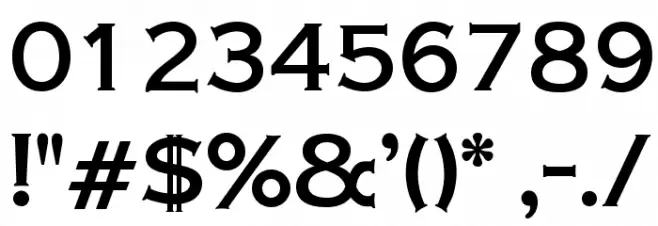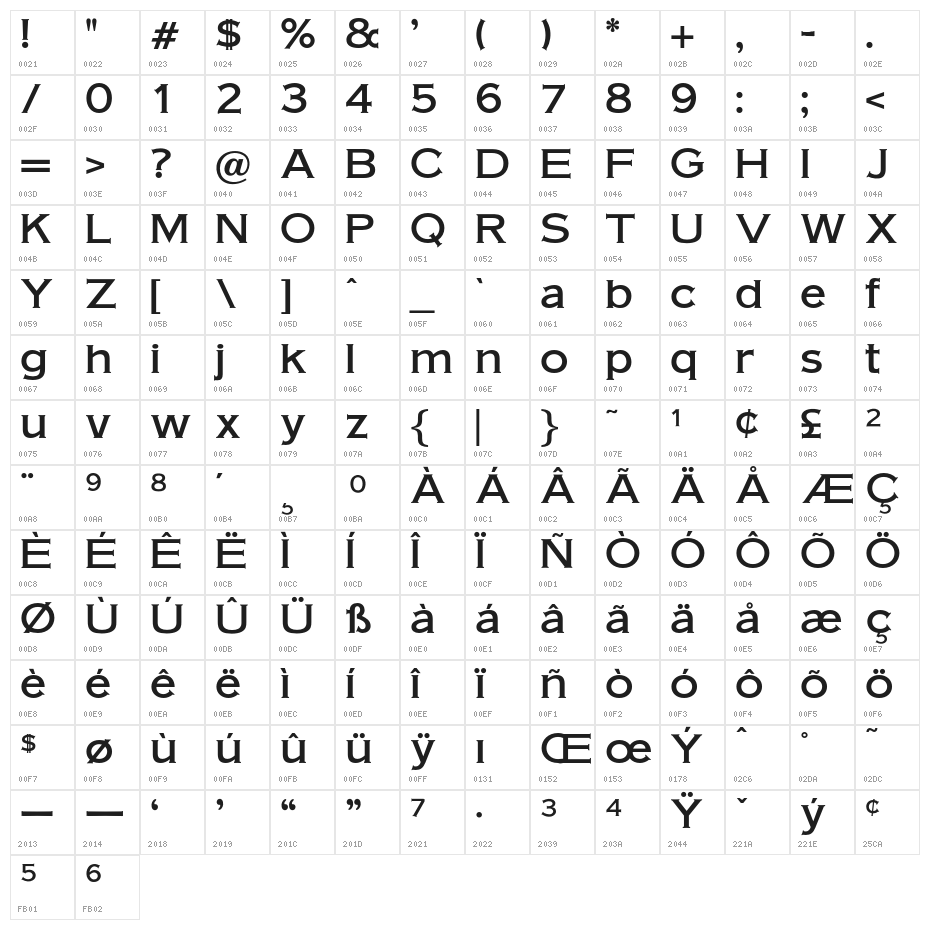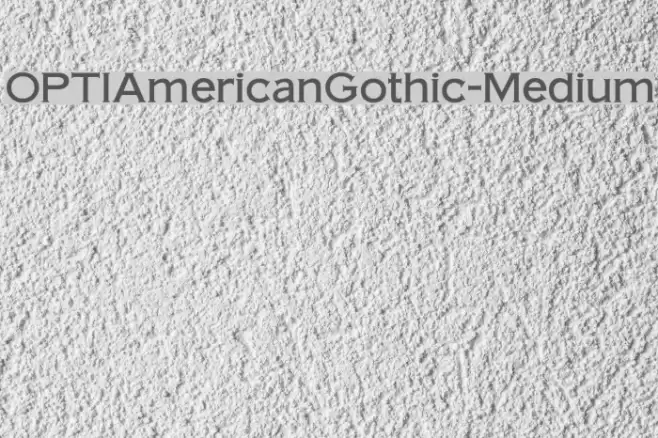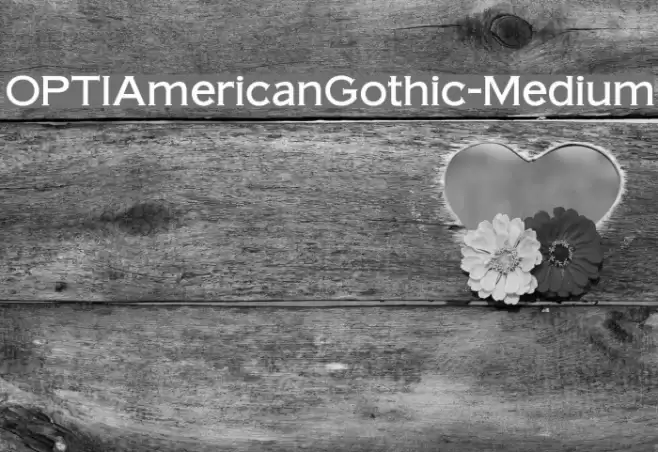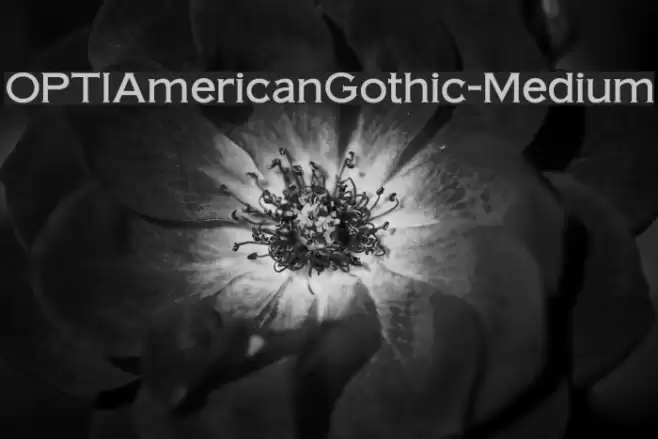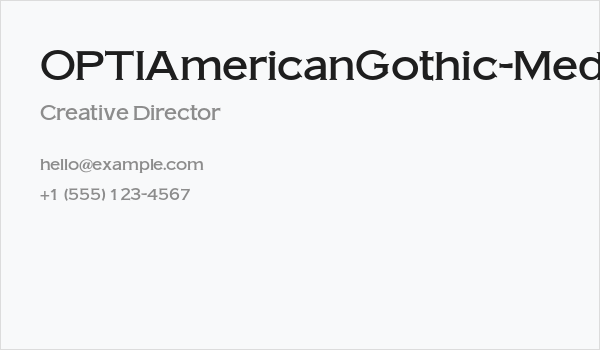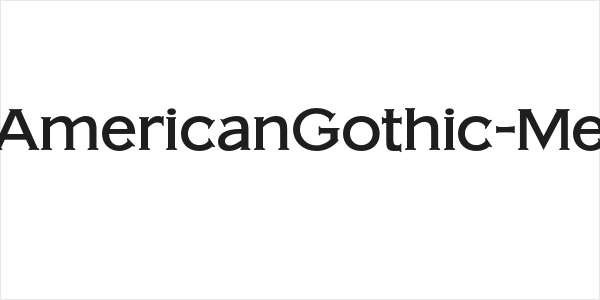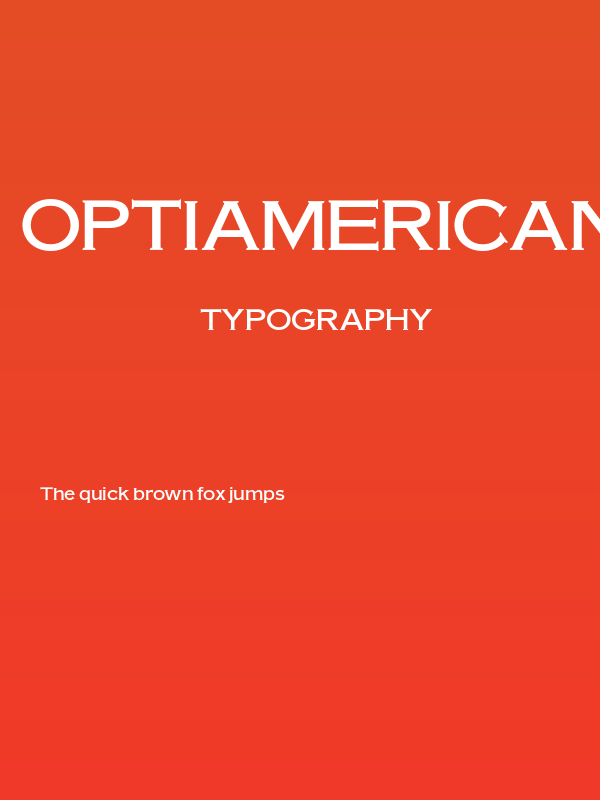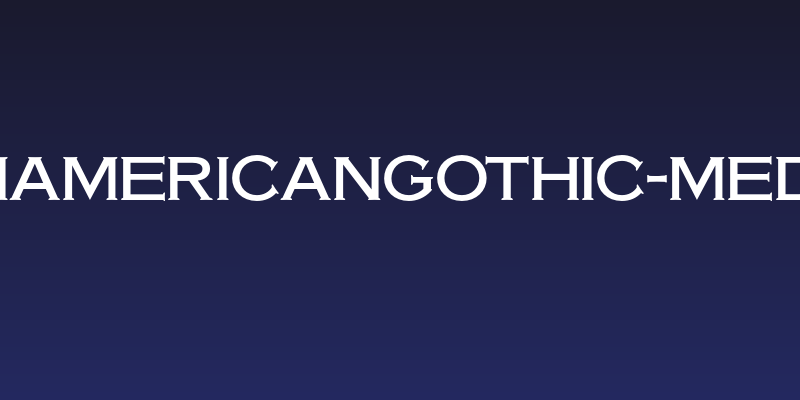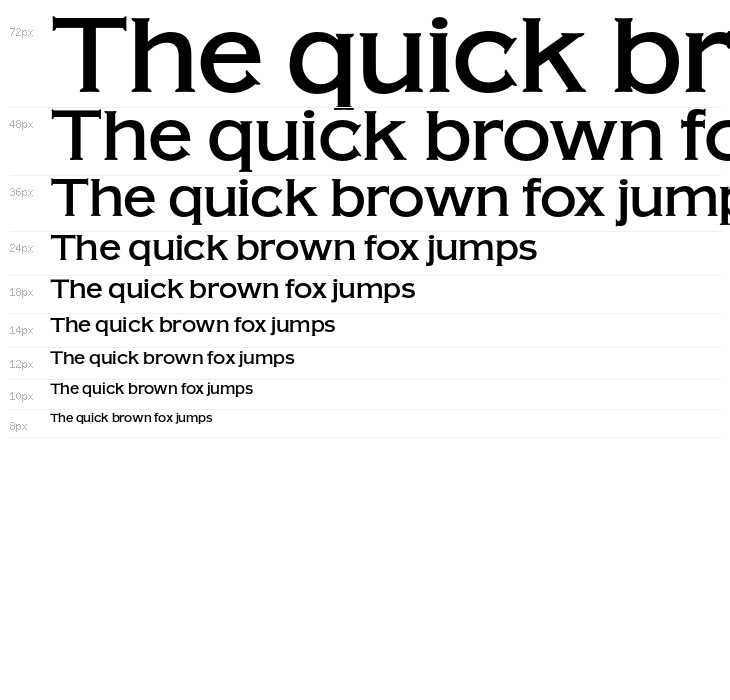
OPTIAmericanGothic-Medium Font
OPTIAmericanGothic-Medium Description
This font features a clean and modern design with a strong emphasis on readability. The characters are well-proportioned with a consistent stroke width, giving it a balanced and harmonious appearance. The uppercase letters are bold and assertive, while the lowercase letters maintain a smooth and approachable feel. The numerals are clear and distinct, making them ideal for both digital and print formats. Special characters are thoughtfully designed, ensuring they integrate seamlessly with the rest of the typeface. Overall, this font exudes a professional and contemporary vibe, suitable for a wide range of applications.